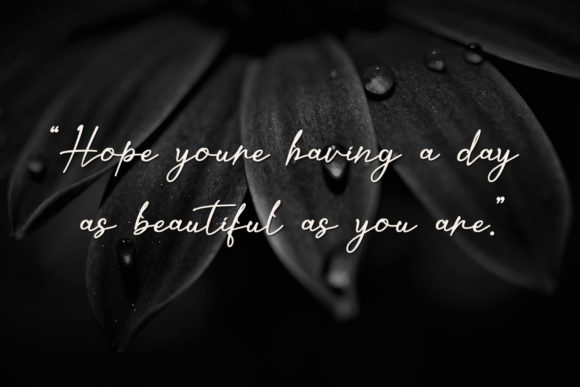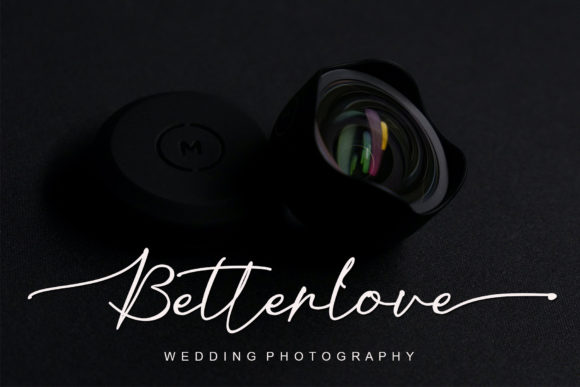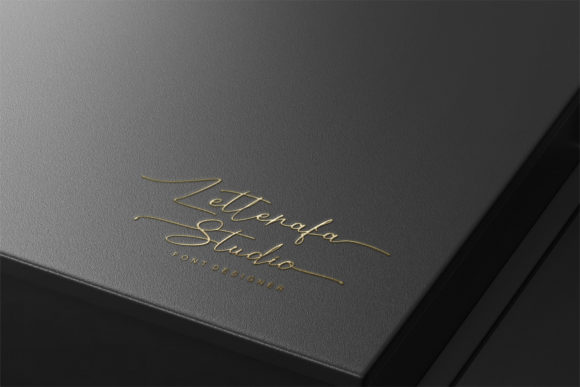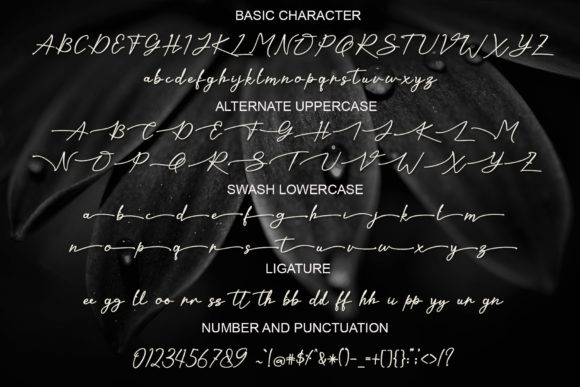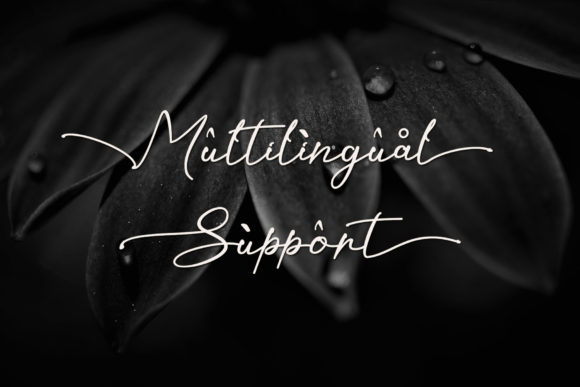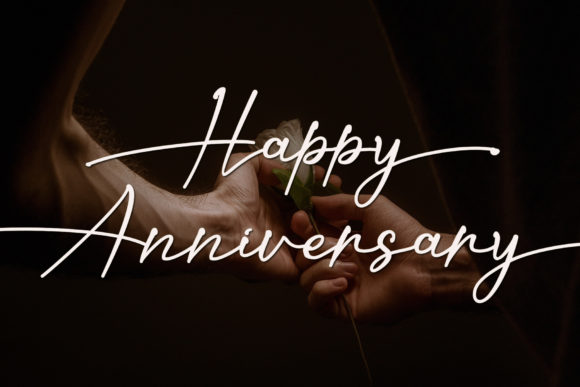
Kaliurang Signature Font
About Kaliurang Signature Font
Kaliurang Signature is a modern handwritten font by Letterafa Studio. It has flowing letters that will give your designs a unique and sweet look. Kaliurang Signature is perfect for logos, greeting cards, package design, brand identity, craft design and any DIY project.